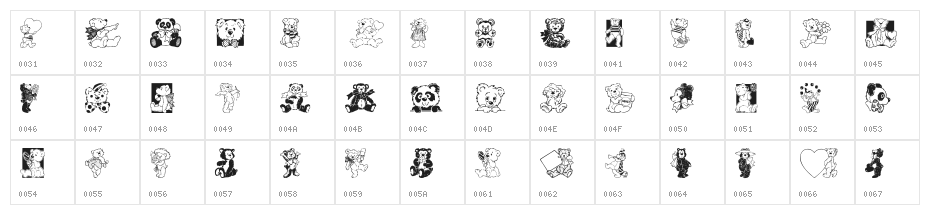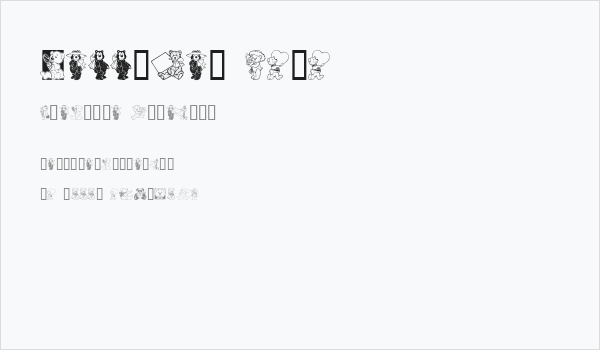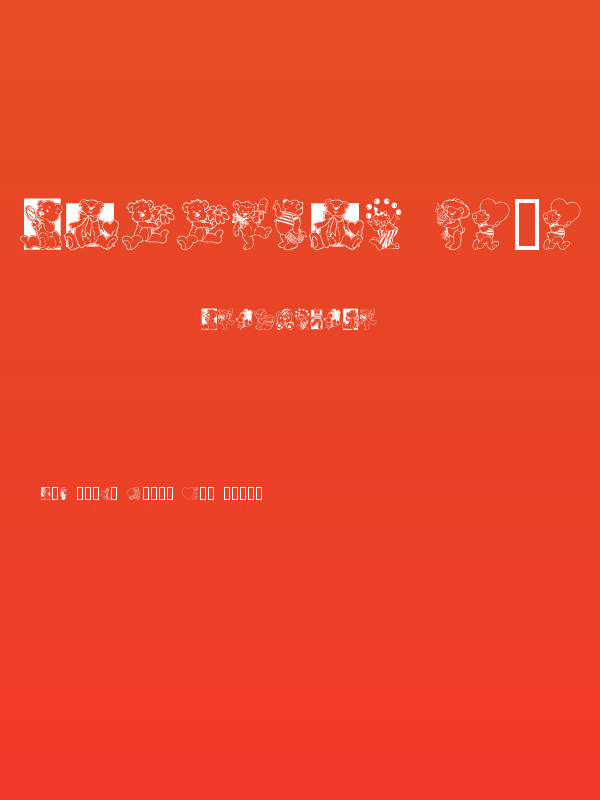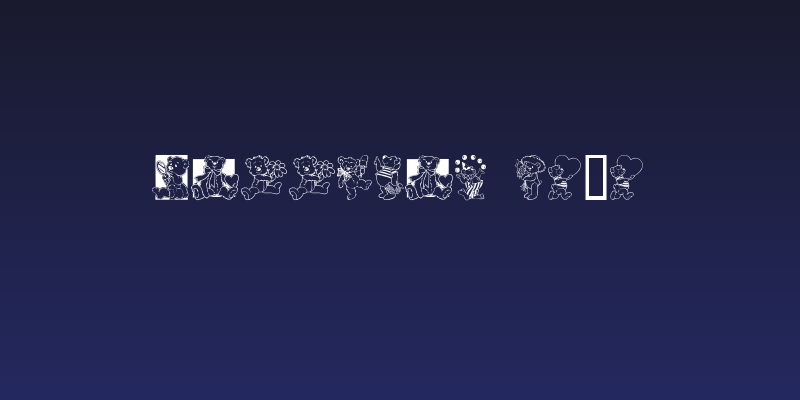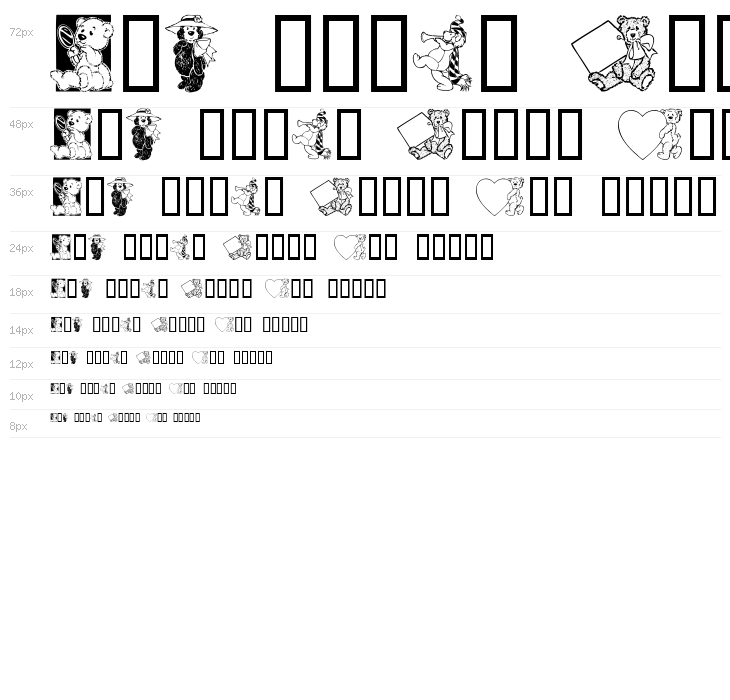
Teddyber V1.1 Font
Teddyber V1.1 Description
A playful decorative font featuring hand-drawn teddy bear illustrations for each character, with each glyph uniquely styled as a different bear or bear-themed object. The font is highly illustrative and whimsical, focusing on visual storytelling rather than traditional letterforms.
Overall StylePlayful, Whimsical, Decorative
Use CaseLogos, Headlines, Themed graphics, ChildrenÒ€ℒs materials
Proposed ProjectsChildrenÒ€ℒs books, greeting cards, nursery decor, playful branding, party invitations.